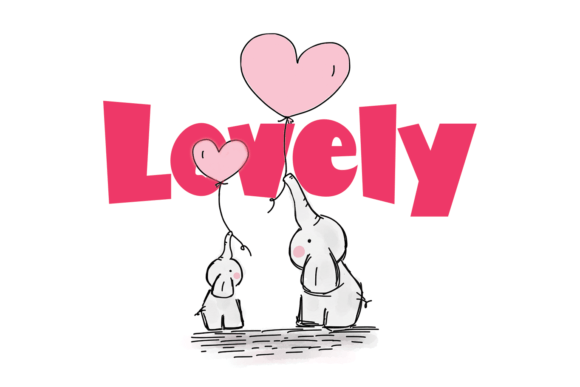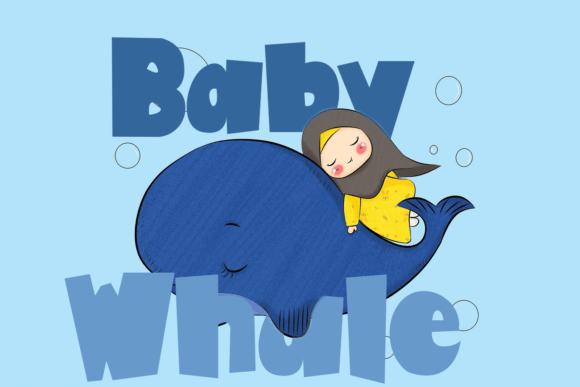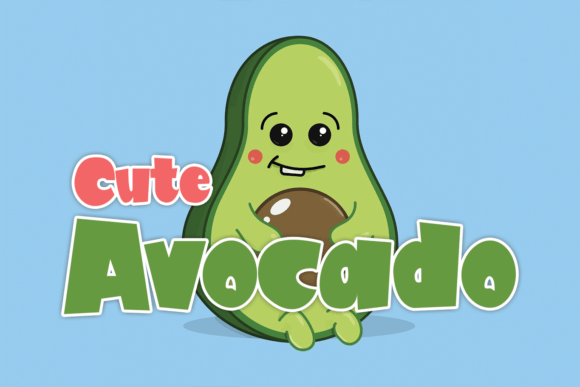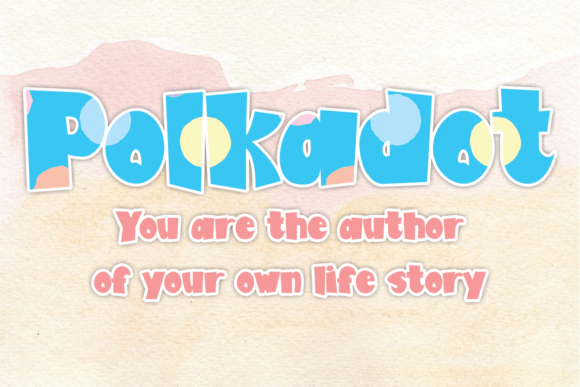
The Ultimate Game-Changer in Typography: Chubby Font
Have you ever been brainstorming ideas for a project, and suddenly, you hit a creative roadblock? You stare at a blank page, and your mind goes blank. This is where the magic of typography comes in – a well-chosen font can breathe new life into your ideas. For designers and creatives, finding the perfect font can be a challenge, but trust us, it’s worth the hunt.
Enter Chubby Font, a bold and cool display font that’s guaranteed to make your creative ideas stand out. This modern and playful font is perfect for adding a touch of whimsy to your designs. Whether you’re a seasoned designer or just starting out, Chubby Font is a valuable addition to your toolkit.
Key Features of Chubby Font
- Font Family: Chubby Font is a sans-serif font family designed for digital use.
- Character Set: Chubby Font includes a wide range of characters, including Latin, Cyrillic, and Greek alphabets, as well as punctuation and symbols.
- Unique Characteristics: Chubby Font is known for its rounded and playful appearance, making it suitable for use in digital interfaces, signage, and advertising.
Designer Review: Chubby Font
Overall, I think the Chubby Font has some great qualities that make it a solid addition to any design project. ✨ The font’s playful, rounded edges and friendly feel make it perfect for creating a warm and inviting atmosphere. It’s also great for designing for younger audiences or brands that want to convey a sense of approachability.
However, there are some limitations to consider. ⚠️ The font’s bold and italic styles can be a bit chunky and overwhelming, which may not be ideal for certain design applications. Additionally, the font’s lack of subtlety in its rounded edges can make it feel a bit too playful for more formal or professional projects.
- Chubby Font is available in a range of weights, from light to bold
Overall, I think the Chubby Font is a fun and versatile font that can add a lot of personality to a design project. With some careful consideration of its limitations, it can be a great choice for the right project.
Some tips for getting the most out of Chubby Font include:
– Using it for headings or titles to add a playful touch.
– Combining it with other fonts for a unique look.
– Adjusting the font size to balance with other text elements.
– Designing children’s books or educational materials.
– Creating playful promotional materials.
– Adding a fun touch to social media graphics.
Alternatives to Chubby Font
Playfair Display is a luxurious and elegant script font that can be used for headings, titles, and other display text. It has a more refined and sophisticated look compared to Chubby Font, making it suitable for high-end branding, invitations, and special occasions.
Comparison to Chubby Font: While Chubby Font is a playful and casual font, Playfair Display is more formal and sophisticated. Playfair Display has a more intricate design with flourishes and swashes, making it ideal for special occasions and luxury branding.
Great Vibes is a modern and elegant script font that can be used for headings, titles, and other display text. It has a more relaxed and casual look compared to Chubby Font, making it suitable for creative projects, food and drink branding, and modern designs.
Comparison to Chubby Font: While Chubby Font is a playful and casual font, Great Vibes is more elegant and refined. Great Vibes has a more fluid and connected design, making it ideal for modern and creative projects.